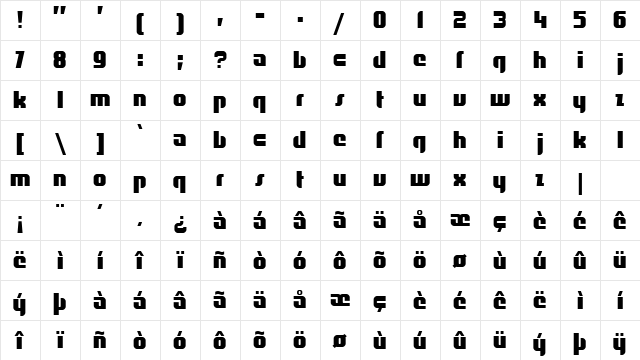
K22 Stile Ballmer Regular
Foundry: Toto
Designer: Walter Ballmer
Design Context for K22 Stile Ballmer
K22 Stile Ballmer is a composed and adaptable typeface that performs quietly and consistently across a wide range of design contexts.